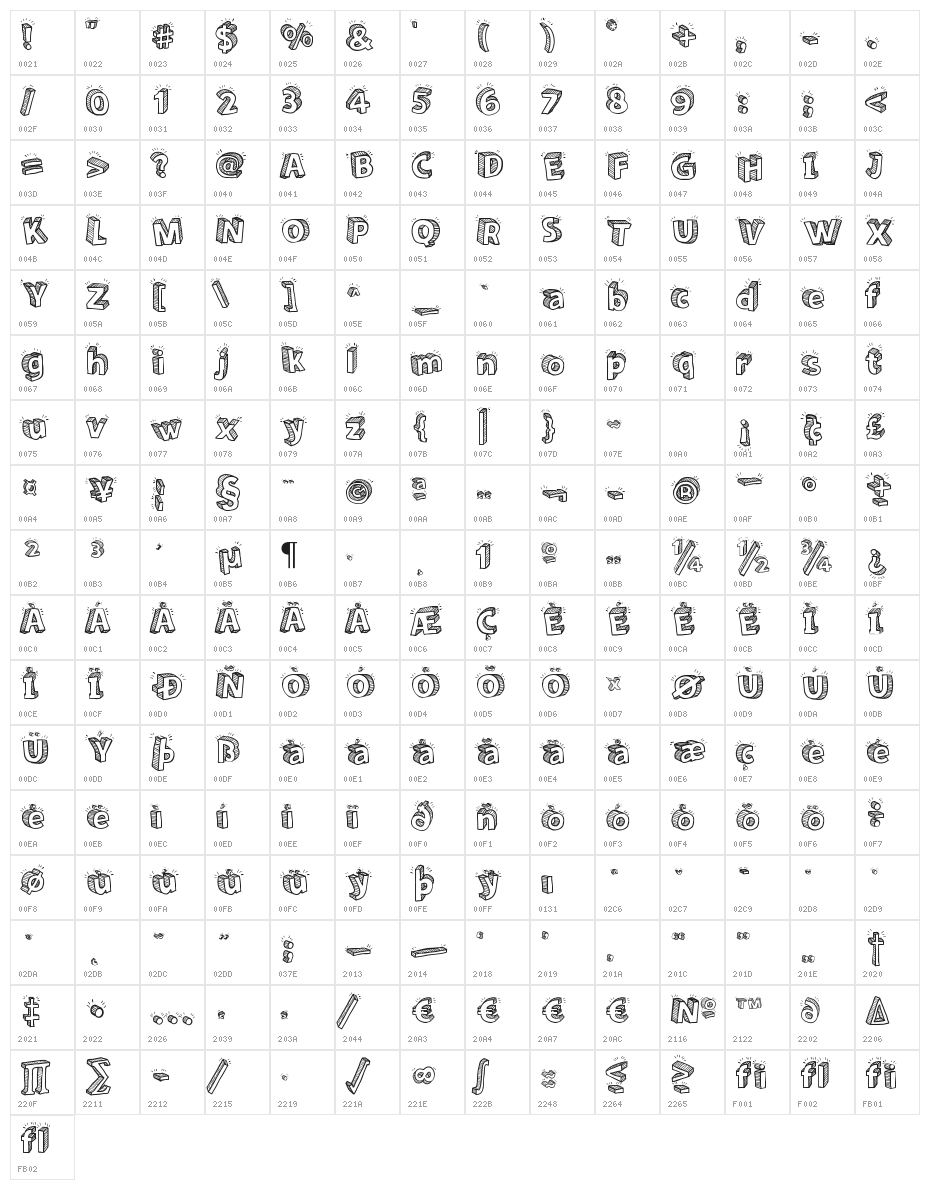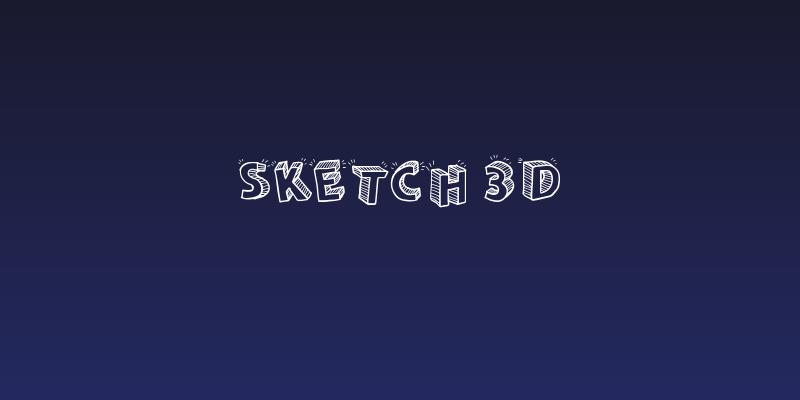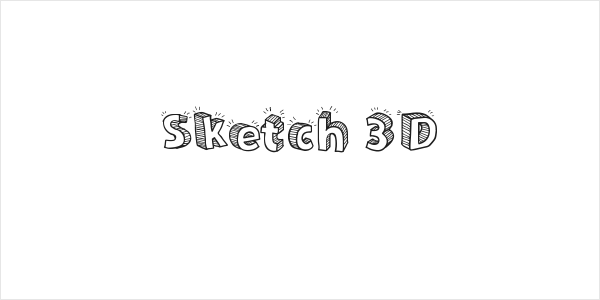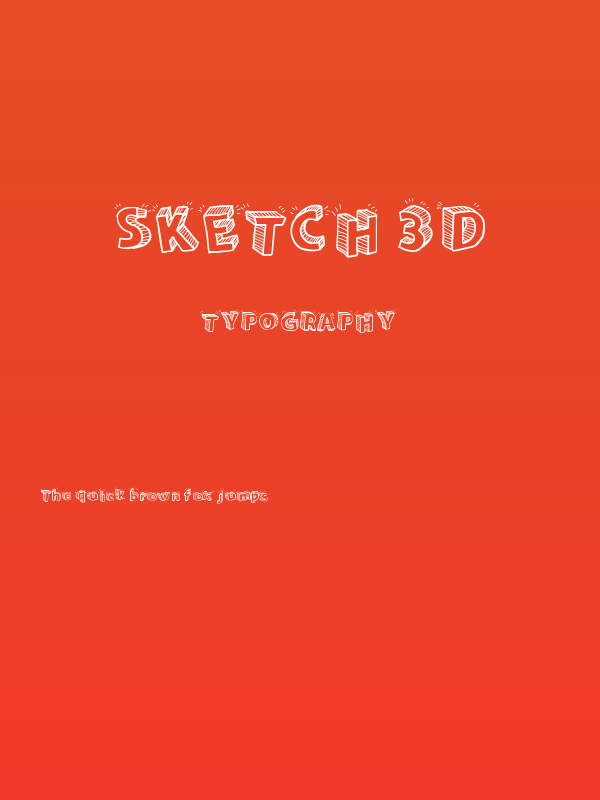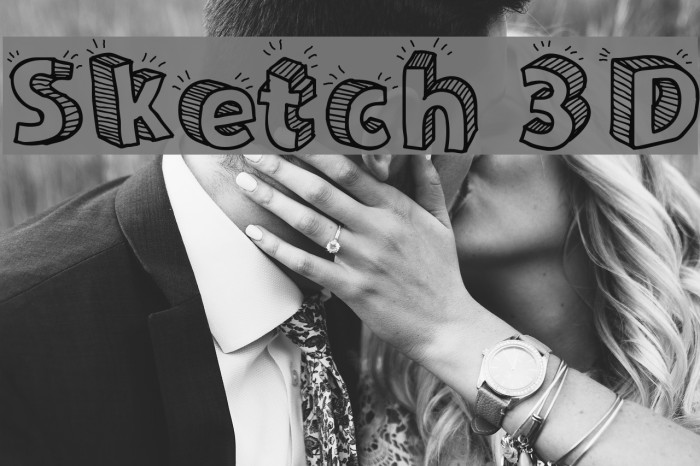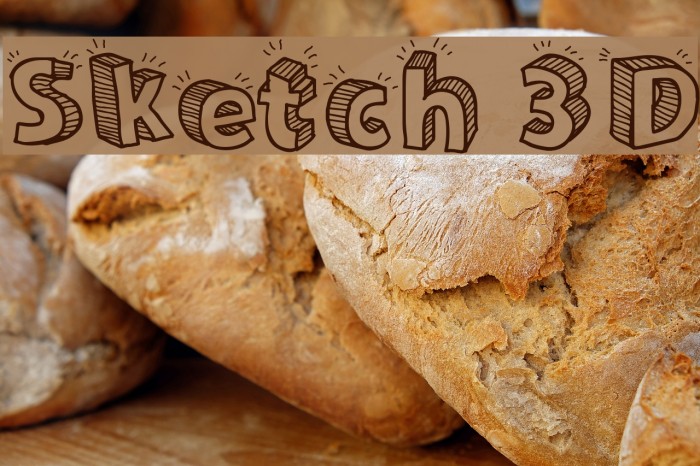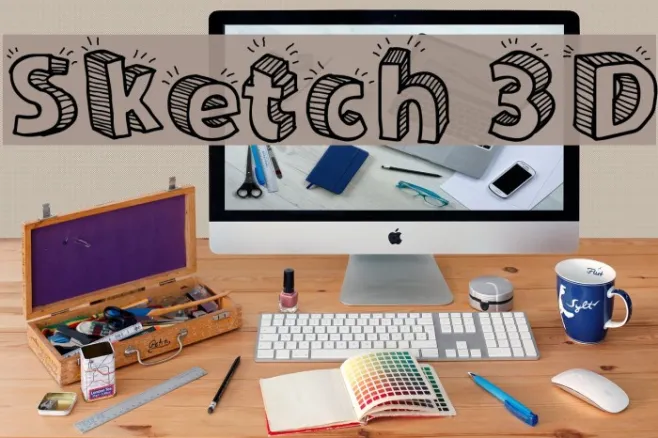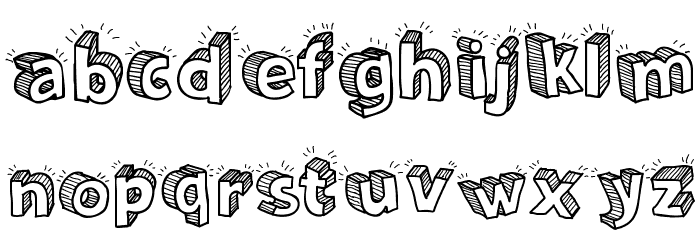
Sketch 3D Font
Sketch 3D Description
This playful and dynamic font features a sketch-like 3D appearance, giving each character a hand-drawn, artistic feel. The letters are bold and outlined with a shadow effect that enhances their three-dimensional look. The font combines a casual, comic style with a sense of depth, making it visually engaging. It includes both uppercase and lowercase letters, numbers, and a variety of special characters. The irregular, slightly whimsical strokes add to its charm, making it suitable for creative and informal designs.
| Proposed Projects | Ideal for children's book covers, comic strips, playful branding, and creative posters. |